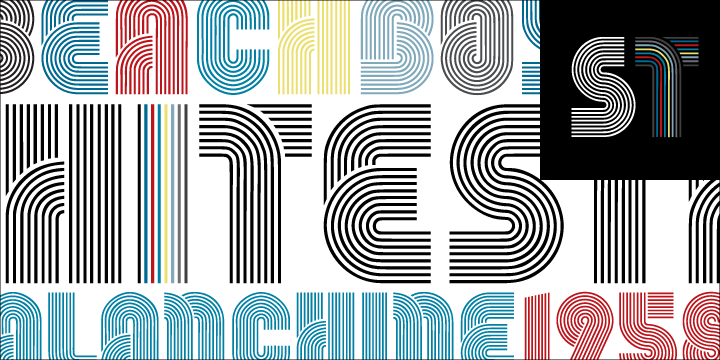
Perfect for sports team logos, retro fashion branding, vintage car shows, arcade game designs, music album covers, restaurant menus, festival posters, and nostalgic marketing campaigns.
This font is exciting because it captures the dynamic energy of classic American design with bold striped patterns that create instant visual movement and nostalgic appeal.
Experience the electrifying energy of retro design with Stripes Font Free Download, a captivating typeface that brings the bold spirit of vintage Americana to contemporary design projects. This exceptional font combines classic striped aesthetics with modern functionality, making it perfect for brands seeking to evoke nostalgia while maintaining contemporary relevance and visual impact.
Stripes Font features distinctive letterforms with integrated striped patterns that create immediate visual interest and dynamic movement. The carefully crafted stripes within each character add depth and texture, transforming ordinary text into eye-catching design elements that command attention and create memorable brand experiences. This unique characteristic makes every application feel energetic and engaging.
The font's versatility shines across numerous design contexts, from vintage-inspired branding that needs authentic period appeal to modern projects requiring retro flair. Whether you're designing throwback sports merchandise that celebrates team heritage, creating restaurant branding with classic diner aesthetics, or developing entertainment marketing materials that capture carnival excitement, Stripes Font delivers consistent personality and visual appeal.
Creative professionals worldwide embrace the Stripes Font Free Download for projects demanding distinctive character and nostalgic charm. The font works brilliantly for automotive brands celebrating classic car culture, entertainment venues creating retro atmospheres, fashion companies targeting vintage style enthusiasts, and any business wanting to tap into the powerful emotional connection that nostalgic design creates with audiences.
The comprehensive Stripes Font family includes multiple weights and variations that maintain the signature striped aesthetic while providing design flexibility. Each character demonstrates meticulous attention to detail, ensuring the stripe patterns remain crisp and visually appealing across all sizes, from large-scale signage that needs to be readable from distances to smaller applications requiring fine detail preservation.
This typeface excels in applications where bold visual impact is essential for brand recognition and customer engagement. The striped patterns create natural texture that eliminates the need for additional design elements, simplifying layouts while maximizing visual interest. This efficiency makes Stripes Font invaluable for designers working with tight deadlines or limited design budgets.
The font's technical excellence ensures optimal performance across both digital and print applications. The stripe patterns maintain their integrity when scaled, reproduced on various materials, or displayed on different screen types, making it reliable for comprehensive brand campaigns that span multiple mediums and touchpoints.
Stripes Font represents more than typography—it's a direct connection to the golden age of American design, when bold graphics and optimistic aesthetics defined cultural expression. This historical connection adds authenticity and emotional resonance to modern brands seeking to differentiate themselves through meaningful design choices.